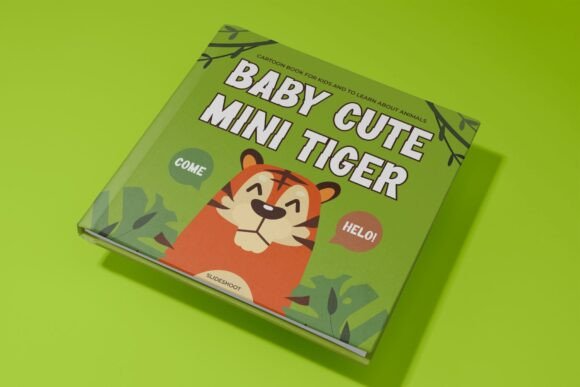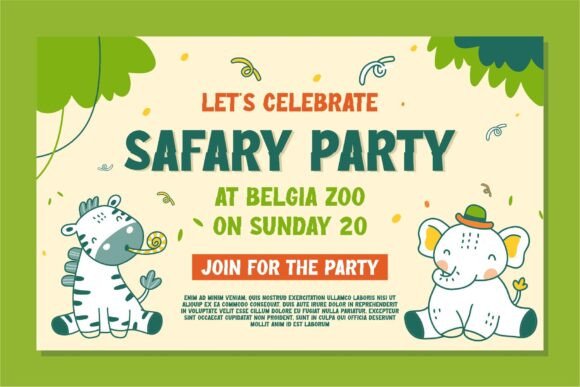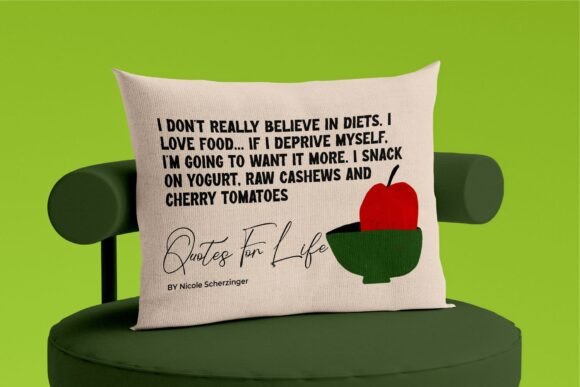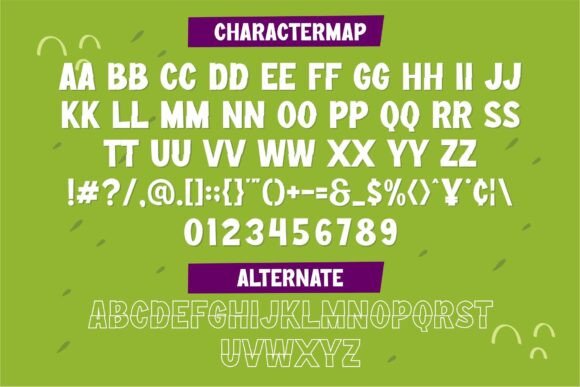
Get Ready to Sprinkle Some Fun with Your Designs
Who hasn’t had one of those magical moments when a spark of creativity hits and everything falls into place? You’re brainstorming ideas for a new project, and suddenly, a quirky font pops into your mind, instantly elevating your concept to the next level. For many designers, this is exactly what happens when they stumble upon the perfect font – and we’re excited to share one that’s sure to bring a smile to your face: Donuts Matcha Font.
This charming display font is more than just a pretty face; it’s a bold statement piece that adds a playful, hand-drawn vibe to any design. Whether you’re creating content for kids, branding a food business, or simply looking to inject some energy into your social media posts, Donuts Matcha Font is the perfect companion for your creative journey. With its unique, scratched texture, this font is sure to make your designs stand out and leave a lasting impression on your audience.
Donuts Matcha Font Key Features
- Font Family: Donuts Matcha is a sans-serif font family designed to provide a modern and playful look.
- Size: The font family includes multiple weights, ranging from Light to Bold, providing flexibility for various design applications.
- Unique Characteristics: Donuts Matcha features a unique matcha-inspired color palette and a geometric sans-serif design, making it suitable for modern branding and packaging design.
- Resolution: Optimized for high-resolution displays, ensuring crisp and clear typography at various screen sizes.
- Font Width: The font family has a medium to wide width, making it suitable for headings and titles where a bold and modern look is desired.
Donuts Matcha Font Review
Overall, I think Donuts Matcha Font is a nice addition to any design project. Here’s what I like about it:
- ✨ It’s super modern and trendy, which is perfect for brands that want to appeal to a younger audience.
- ✨ The font is quite versatile, and it works well for headings, titles, and even body text.
- ✨ The matcha color scheme is a nice touch, and it adds a bit of whimsy to any design.
- ⚠️ The font can be a bit difficult to read in small sizes, especially for people with vision impairments.
- ⚠️ The matcha color scheme may not be suitable for all brands, especially those with a more traditional or conservative image.
- ⚠️ The font is not ideal for long blocks of text, as it can start to look cluttered and overwhelming.
Overall, I think Donuts Matcha Font is a great choice for designers who want to add a bit of flair to their projects. Just be sure to use it judiciously and in the right context.
Tips for Getting the Most Out of Donuts Matcha Font
For optimal results, use Donuts Matcha Font in conjunction with pastel colors and minimalist designs. Experiment with different font sizes and styles to create visually appealing contrast.
Donuts Matcha Font is ideal for:
- Food and beverage branding
- Summer-themed designs and marketing materials